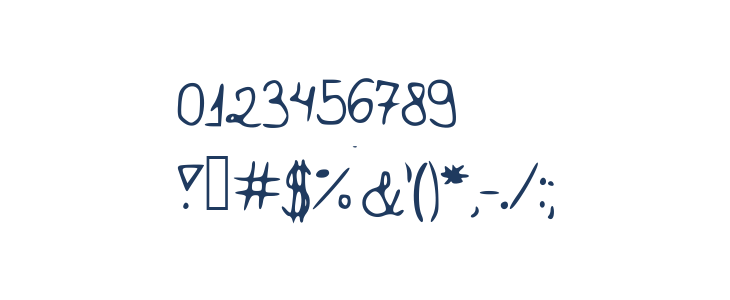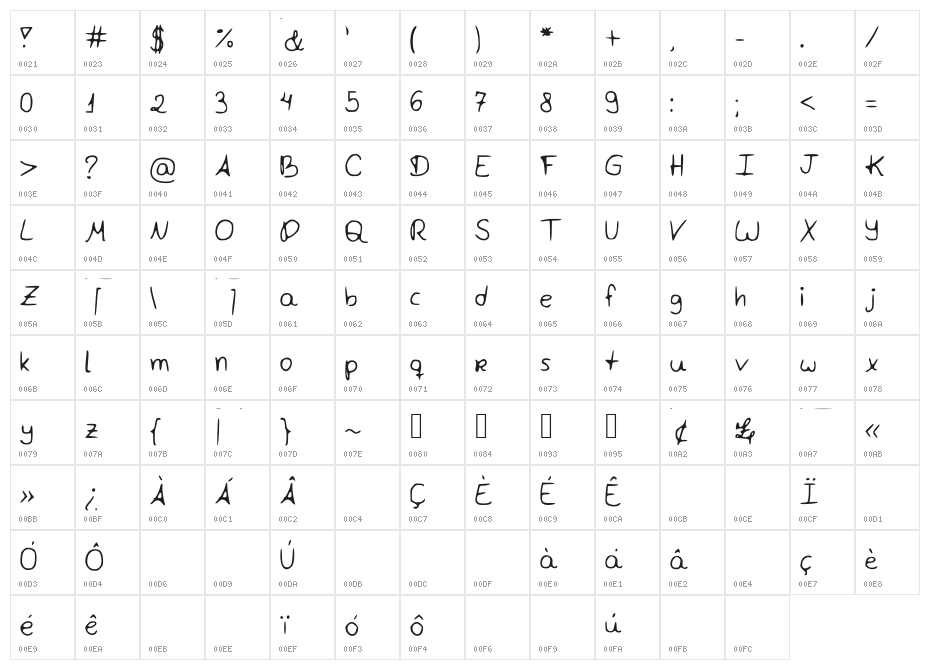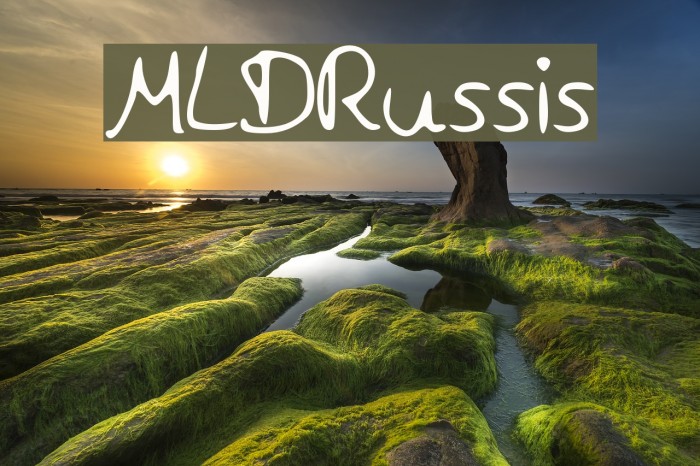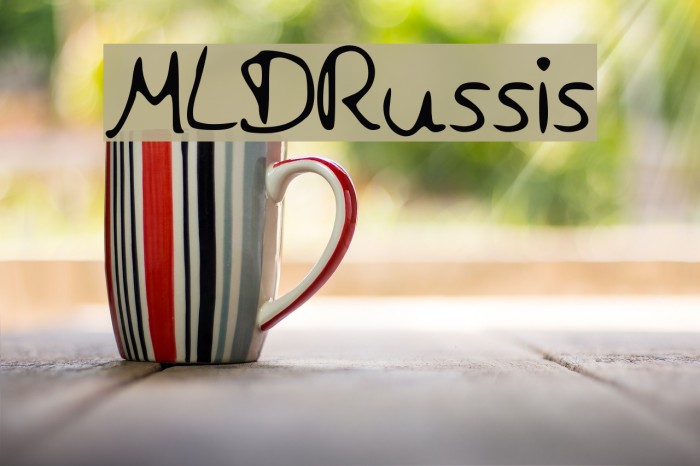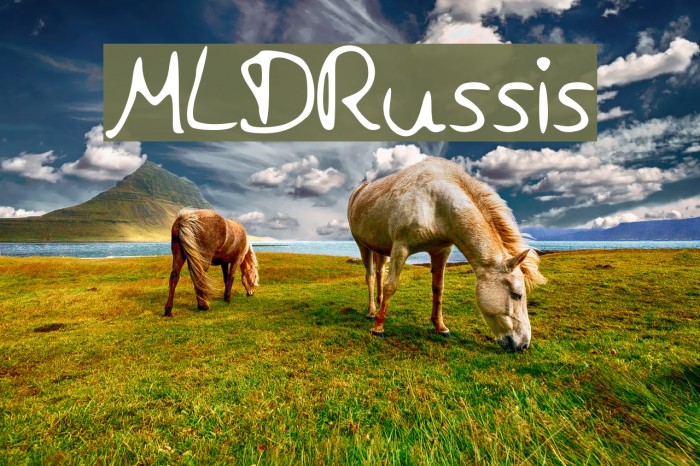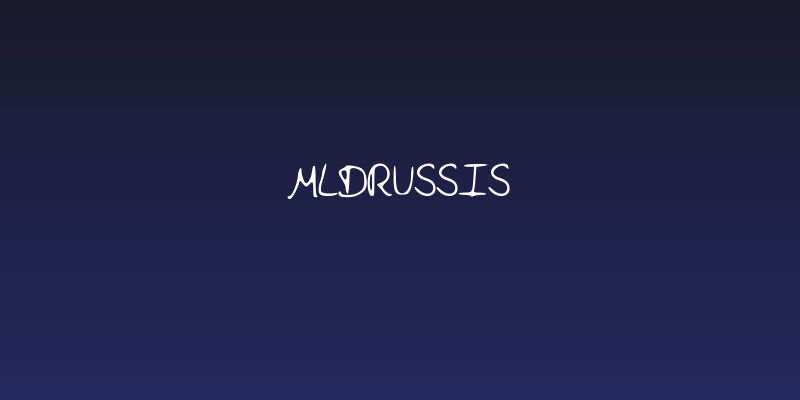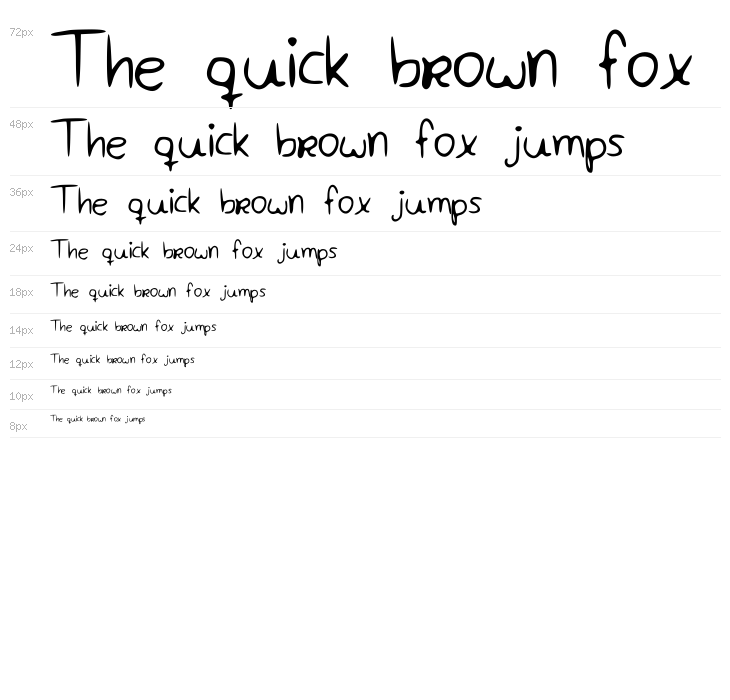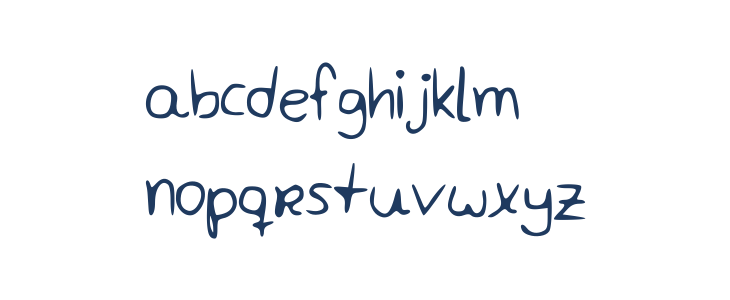
MLDRussis Font
MLDRussis Description
This font exhibits a playful and dynamic handwritten style, characterized by its irregular and flowing letterforms. The uppercase letters are bold and slightly tilted, giving a sense of movement and energy. The lowercase letters maintain a consistent style with a casual, informal appearance. Numbers and special characters are designed with the same lively flair, ensuring a cohesive look across all elements. The strokes are moderately thick, providing good readability while maintaining the font's whimsical nature. This font is well-suited for projects that require a personal touch or a creative, informal vibe.
| Use Case | Headlines, Logos, Informal text |
| Proposed Projects | Ideal for greeting cards, children's books, playful branding, and creative social media graphics. |